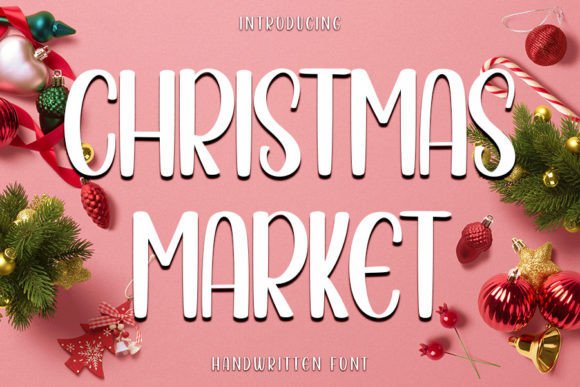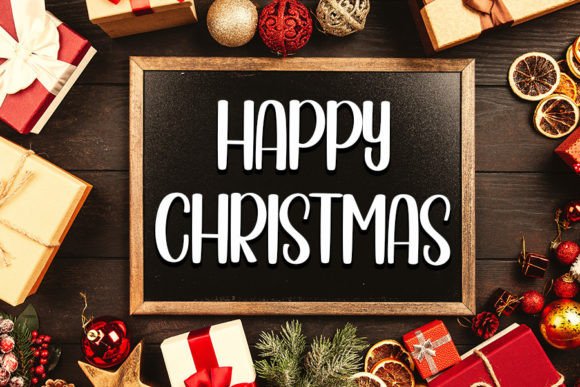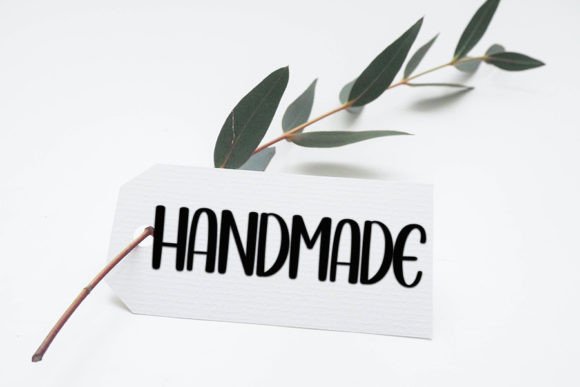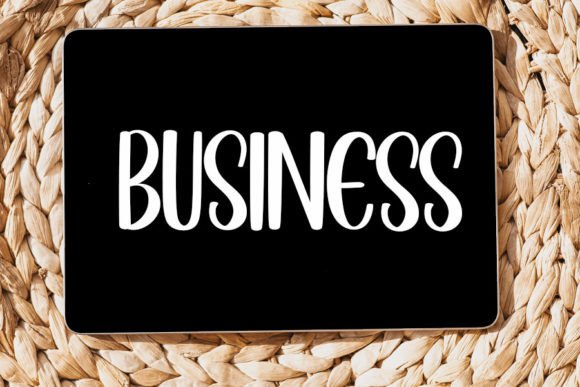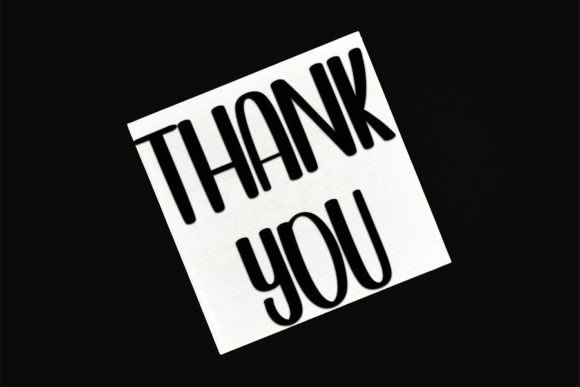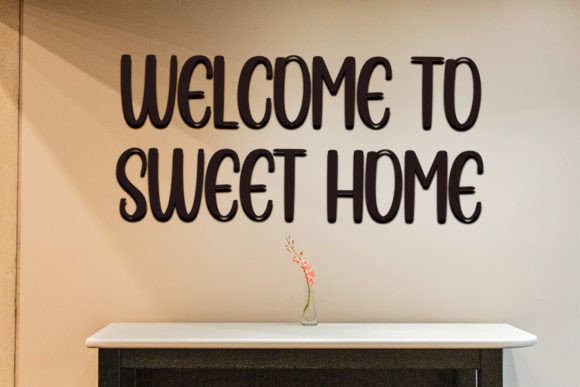
Christmas Market Font
Christmas Market Font Download – Elegant Neat Handwritten Script
The Christmas Market Font download is a neat handwritten script created to add elegance and charm to your creative projects. With its graceful strokes and timeless character, this typeface is suitable for both festive and everyday designs. Because of its versatile style, it works beautifully in personal crafts, branding, and professional stationery.
Elegant and Timeless Handwritten Style
Christmas Market features smooth, balanced curves that make text look refined and approachable. As a result, it adds sophistication while maintaining a friendly handwritten appeal. In addition, its elegant look ensures designs remain stylish and relevant.
From Christmas invitations to heartfelt greeting notes, this font adds a warm and personal touch. It makes each message feel more special and memorable. Therefore, it is an excellent choice for stationery and holiday-themed projects.
Christmas Market Font Download for Posters and Logos
The Christmas Market Font download also fits well in posters, logos, and branding. Its clean handwritten strokes create a professional appearance while keeping your designs approachable and creative.
Versatility Across Creative Projects
From DIY crafts and seasonal decorations to social media content, this font adapts seamlessly. In addition, it performs well across both print and digital platforms, giving designers flexibility.
Readability and Professional Balance
Unlike overly decorative fonts that can be hard to read, Christmas Market balances elegance with clarity. As a result, it works well for titles, logos, packaging, and supporting text.
Why Add This Script Typeface to Your Collection?
The Christmas MarketFont download is versatile, stylish, and easy to use. In other words, it suits greeting cards, posters, invitations, and branding alike. Finally, it is a handwritten font that brings sophistication, creativity, and festive charm to every project.